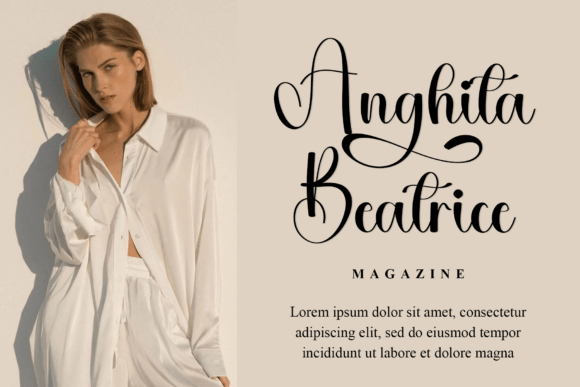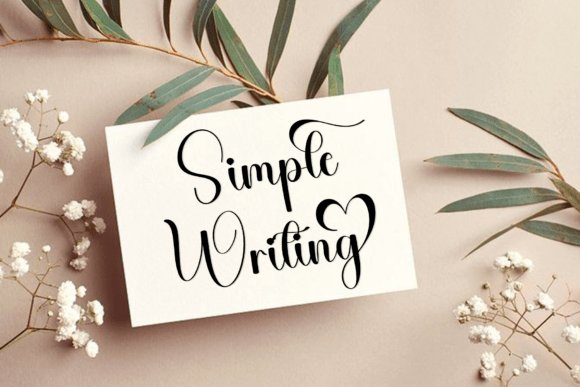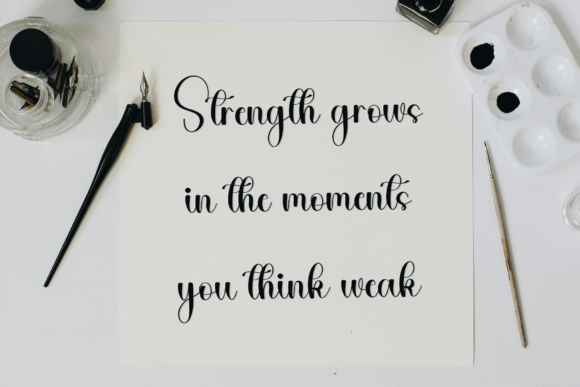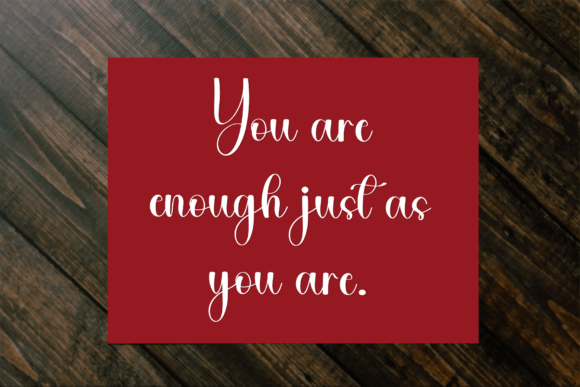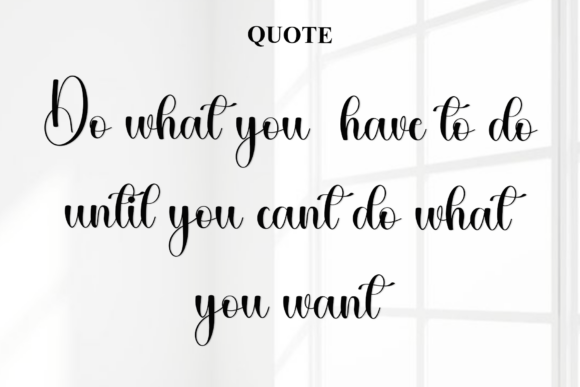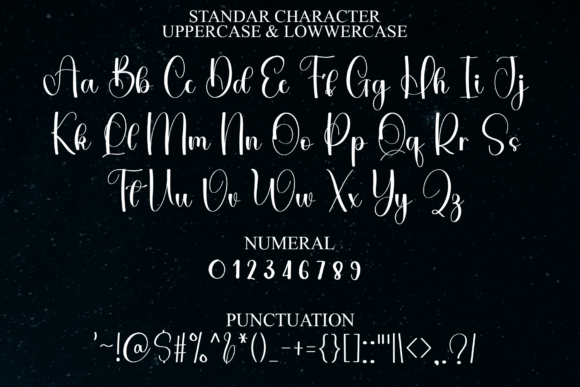
Babyday Font: The Ultimate Holiday Typeface for Your Festive Designs
The holiday season is upon us, and with it comes the need for festive and merry designs that capture the spirit of the season. If you’re a designer or crafter looking for the perfect typeface to add a touch of enchantment to your projects, look no further than the Babyday Font. This beautiful and whimsical font is specifically designed to bring a cheerful and nostalgic ambiance to your words, making it perfect for greeting cards, gift tags, and holiday-themed projects.
The Magic of Babyday Font
Babyday Font is a decorative typeface that embodies the magic of the holiday season. Its intricate details and whimsical flair make it a standout among other fonts, adding a touch of wonder and excitement to any design. With its festive and merry vibe, this font is sure to put a smile on the faces of those who see it. Whether you’re creating holiday greeting cards, gift tags, or festive decorations, Babyday Font is the perfect choice to make your designs shine.
As a designer or crafter, you know how important it is to have the right tools to bring your creative vision to life. Babyday Font is specifically designed with you in mind, providing a unique and versatile typeface that can be used in a variety of projects. From holiday-themed party invitations to festive decorations and gift tags, this font is perfect for adding a personal touch to your designs. With Babyday Font, you can create stunning and professional-looking designs that will leave a lasting impression on your audience.
One of the best things about Babyday Font is that it’s PUA (Private Use Area) encoded, which means you can access all of the amazing glyphs and ligatures with ease. This makes it easy to use the font in your designs, even if you’re not a professional typographer. With PUA encoding, you can simply copy and paste the glyphs and ligatures into your design software, making it easy to add a touch of magic to your projects.
What You Can Create with Babyday Font
The possibilities are endless with Babyday Font. Here are just a few ideas to get you started:
• Holiday greeting cards: Create stunning and personalized greeting cards for your loved ones, complete with festive illustrations and decorations.
• Gift tags: Add a touch of magic to your gifts with custom gift tags featuring Babyday Font.
• Holiday-themed party invitations: Create festive and fun party invitations that set the tone for a memorable holiday celebration.
• Festive decorations: Use Babyday Font to create stunning festive decorations, such as holiday banners, garlands, and signs.
Why Choose Babyday Font?
So why choose Babyday Font for your holiday designs? Here are just a few reasons:
• Unique and festive design: Babyday Font is unlike any other font out there, with its intricate details and whimsical flair.
• Easy to use: With PUA encoding, you can access all of the amazing glyphs and ligatures with ease.
• Versatile: Babyday Font can be used in a variety of projects, from holiday greeting cards to festive decorations.
• High-quality: Babyday Font is a high-quality typeface that’s specifically designed to provide a professional and polished look.